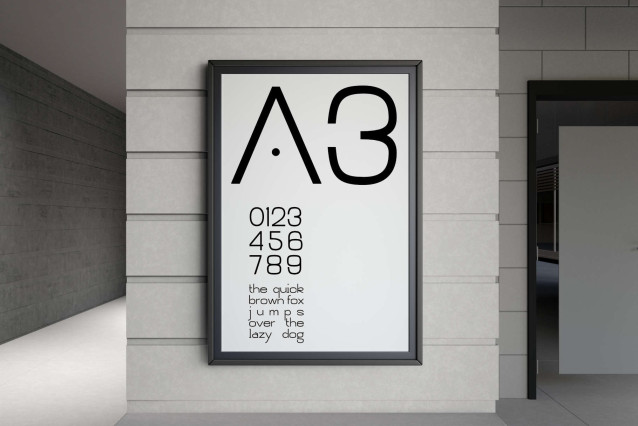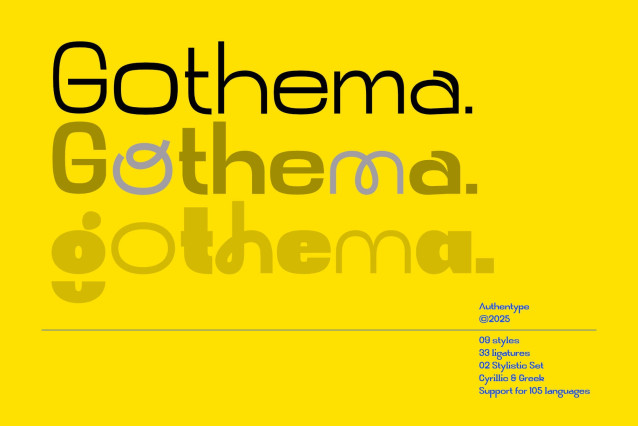
Gothema Font
Gothema Font is a clean, modern geometric sans-serif font family designed to deliver clarity, elegance, and a bold visual identity. With that in mind, its refined structure and complete weight range make it perfect for high-impact results across both digital and print platforms.